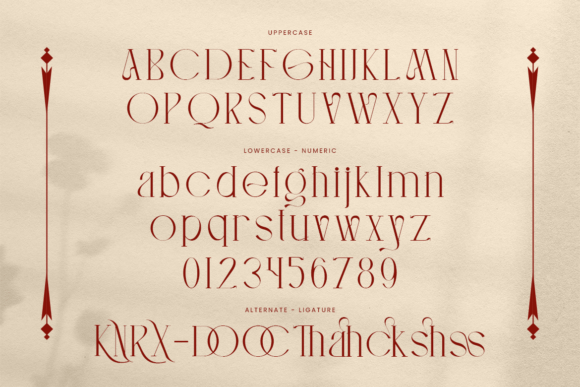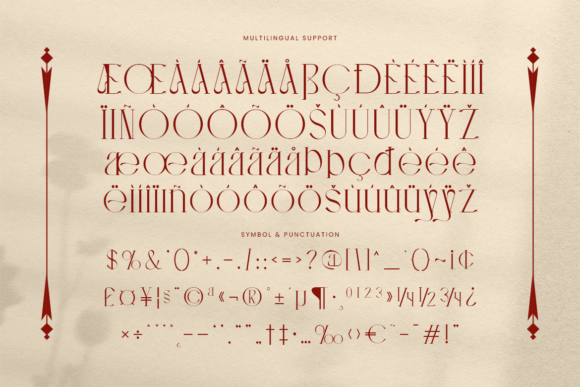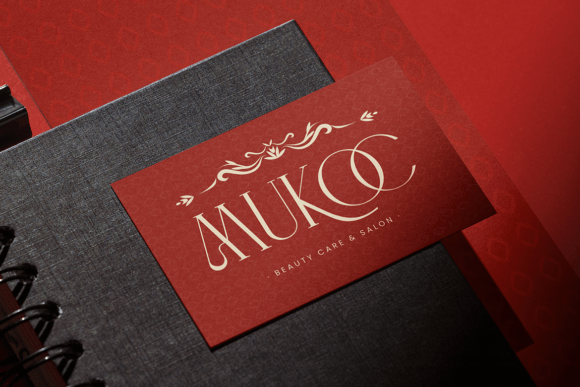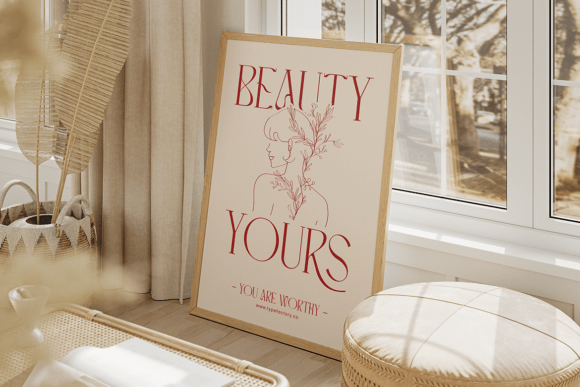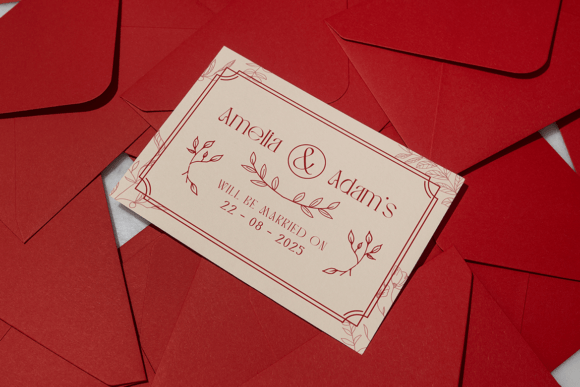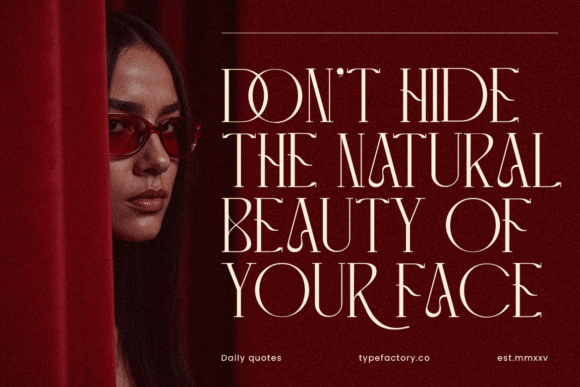
Introduction to Rocmils Font
Rocmils is a thin condensed serif typeface featuring tall proportions and refined high-contrast strokes.
The letterforms combine narrow structures with subtle curves and decorative terminals, creating a graceful vertical rhythm that stands out in display compositions Designed with stylistic alternates and ligatures, Rocmils introduces overlapping characters and distinctive details that enhance logotypes and editorial headlines.